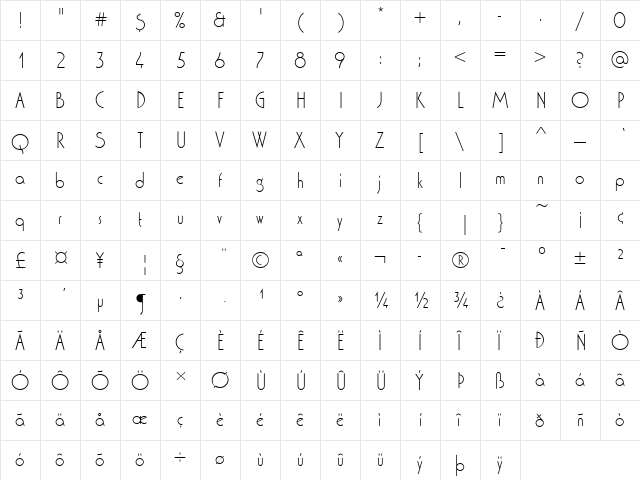
Washington D Light Font Preview
Washington D Light
Design Context for Washington D Typeface
Washington D is a composed and adaptable typeface that performs quietly and consistently across a wide range of design contexts. Its slender proportions lend an understated elegance to any composition.